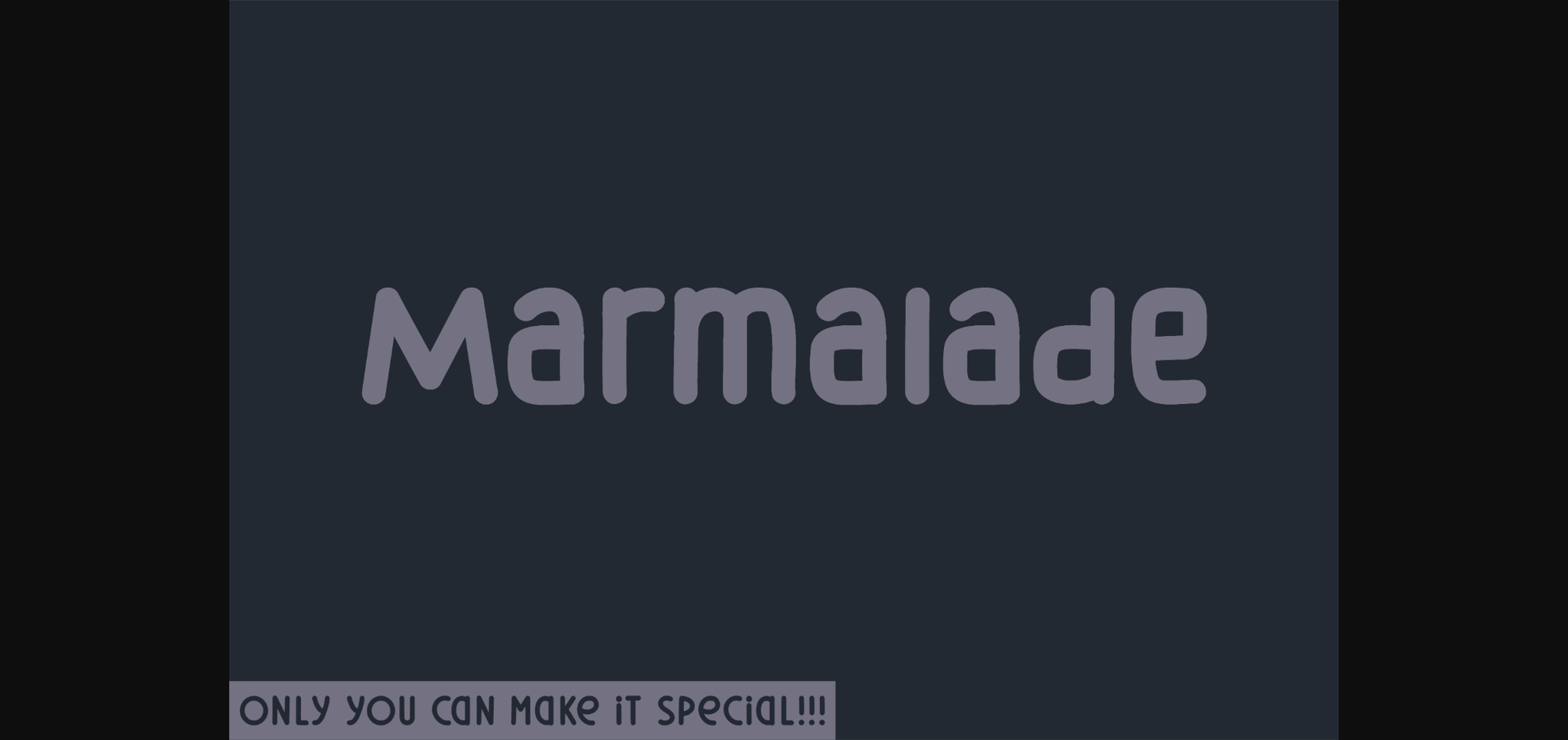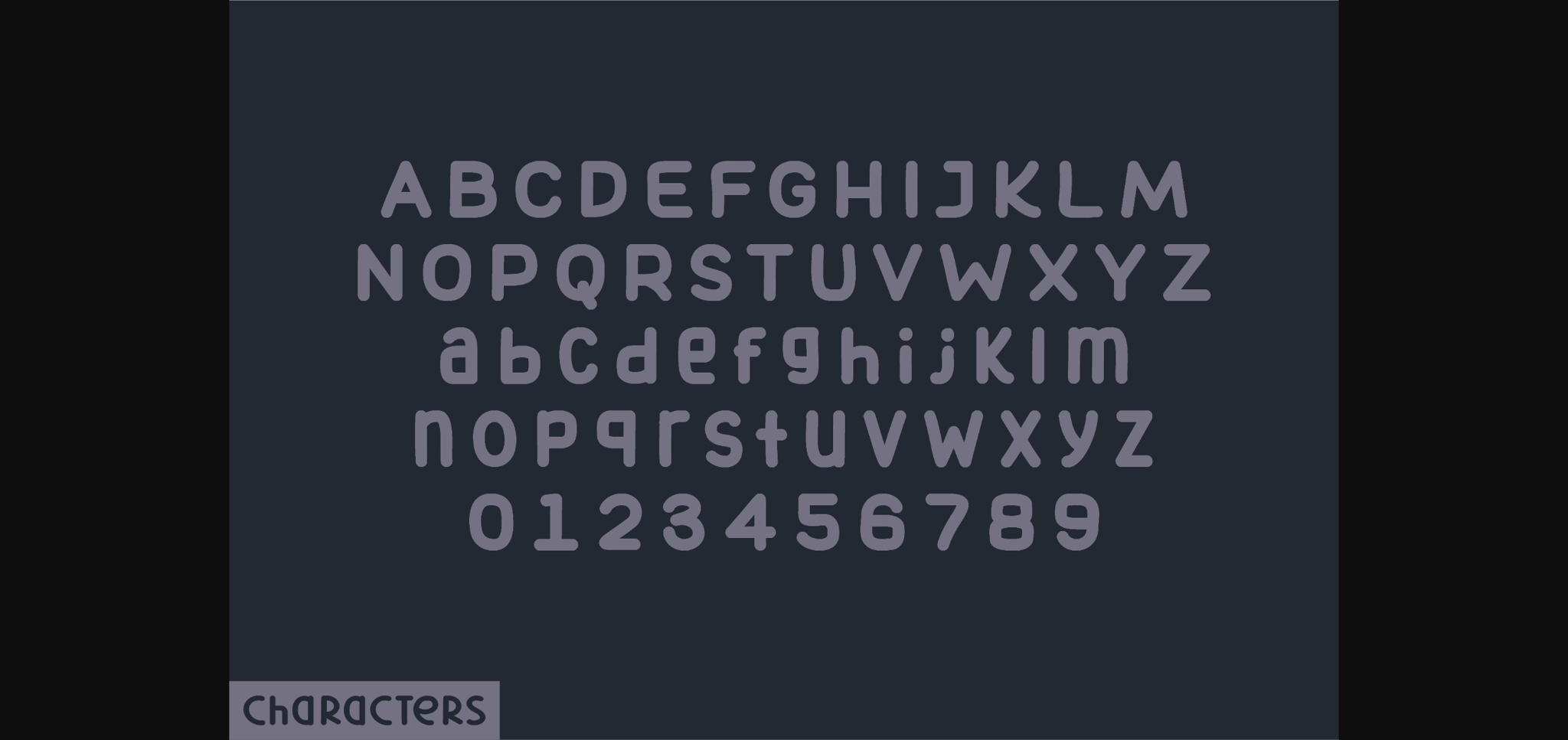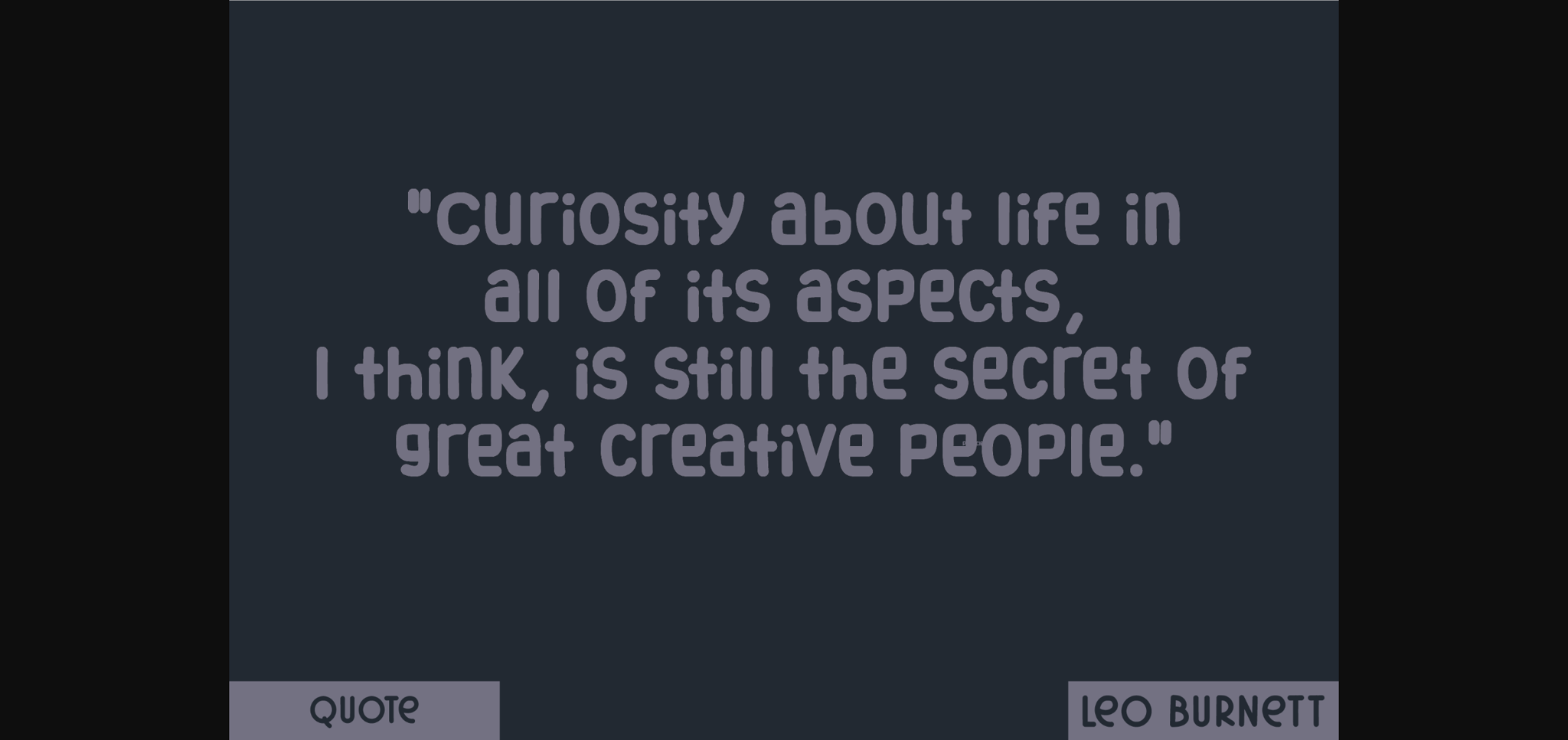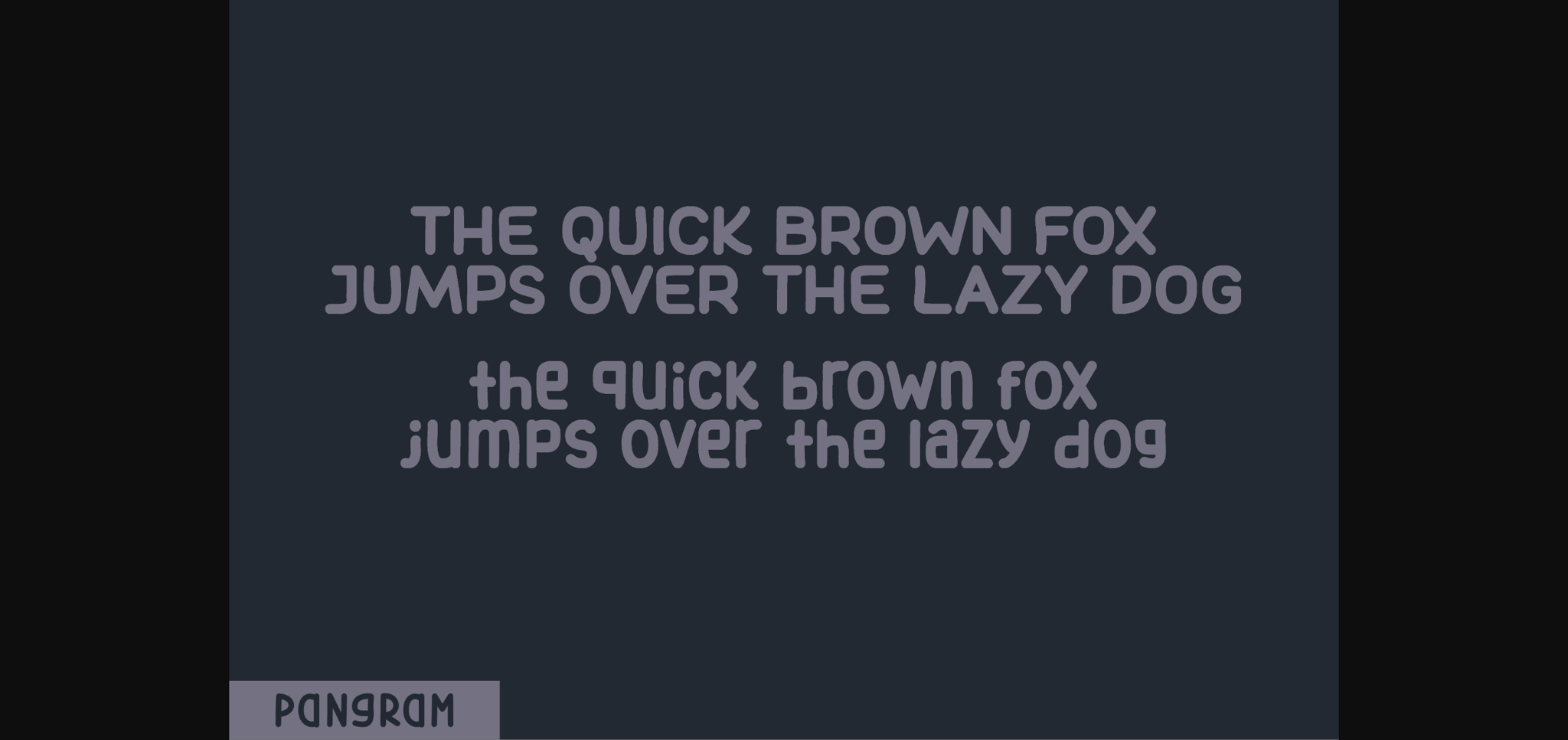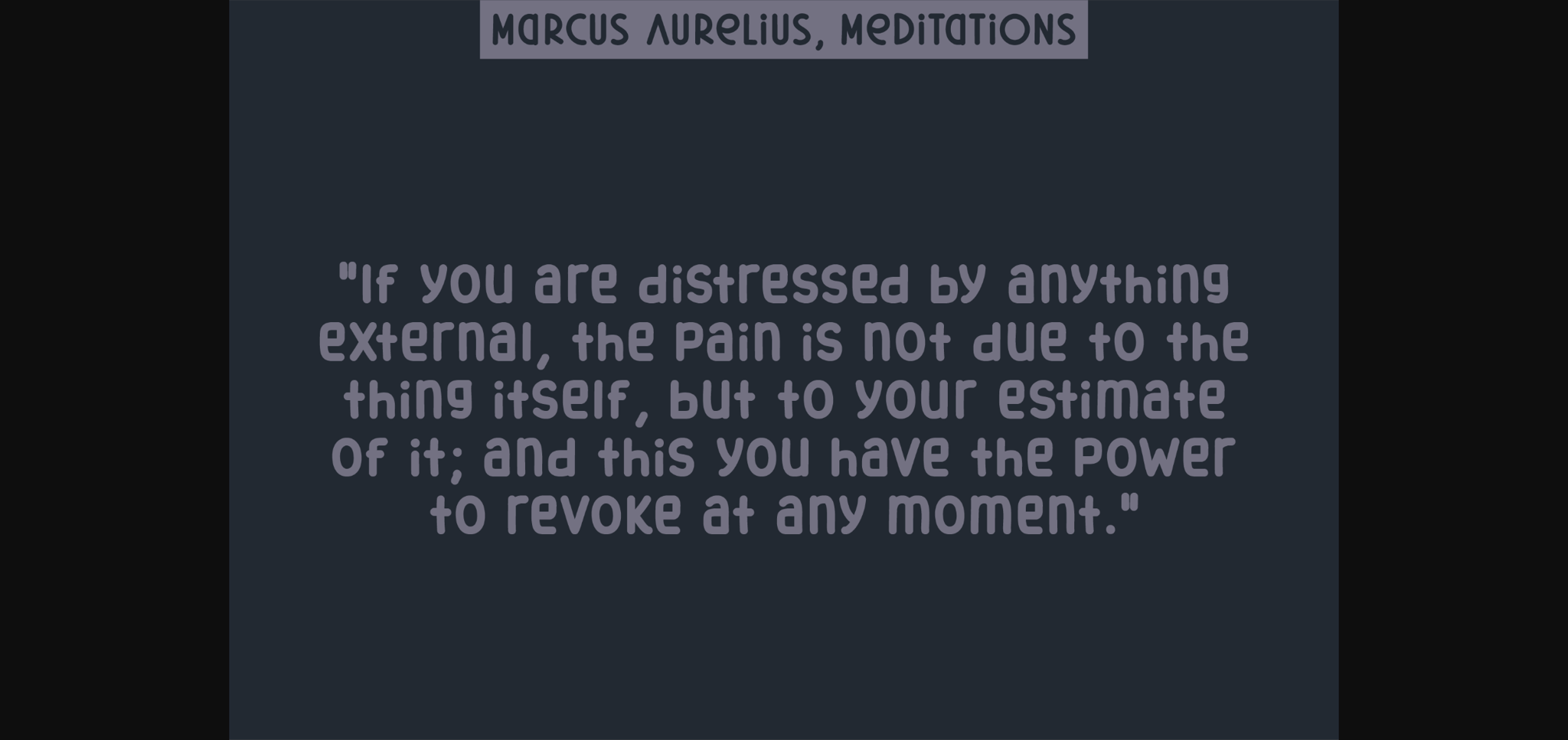
HomeSans Serif FontsMarmalade Font Sans Serif Fonts Marmalade Font FacebookXPinterestWhatsApp 1 of 7 ... Marmalade Font Poster 2... Marmalade Font Poster 3... Marmalade Font Poster 4... Marmalade Font Poster 5... Marmalade Font Poster 6... Marmalade Font Poster 7... About Marmalade Font Marmalade is a natural sans serif font created without changing a single node in each character’s indentation – this makes this font very interesting and unique. Perfect for quotes, notes, tees, and any product design. DOWNLOAD NOW People also explored Leisure Font Spectrashell Thanksgiving Font Cafgone Font Creators Font Flower Star Font Asian Delight Font Hibiscus Flower Monogram Font Bohemia Cerish Font 352 0 TagsMarmalade Font Previous articleEggplant FontNext articleLimeade Font LEAVE A REPLY Cancel reply Comment: Please enter your comment! Name:* Please enter your name here Email:* You have entered an incorrect email address! Please enter your email address here Website: Save my name, email, and website in this browser for the next time I comment. Personal Use Free Maharany Personal Use Free Read more about this font Fuixg Personal Use Free Read more about this font The Quick Personal Use Free Read more about this font Cloudy Night Personal Use Free Read more about this font BLOG How to Cut Any Font on Cricut: Convert a Font to SVG (Free) Turn any font into a clean SVG so it cuts crisp on Cricut - a quick 3-step workflow using a free font-to-SVG tool. 5 Fonts That Will Dominate Design Trends in 2026 Best Fonts for YouTube Videos: Make Your Thumbnails Stand Out How to Install and Use Fonts on Windows, macOS, and Web Projects